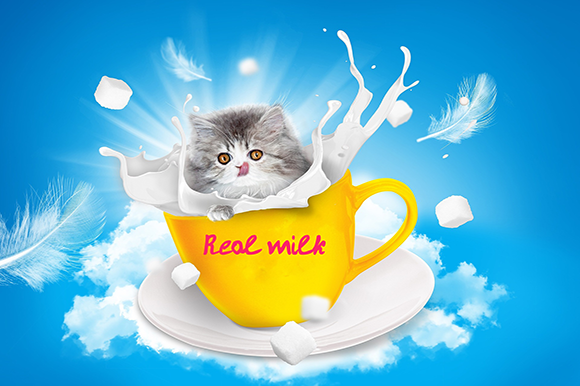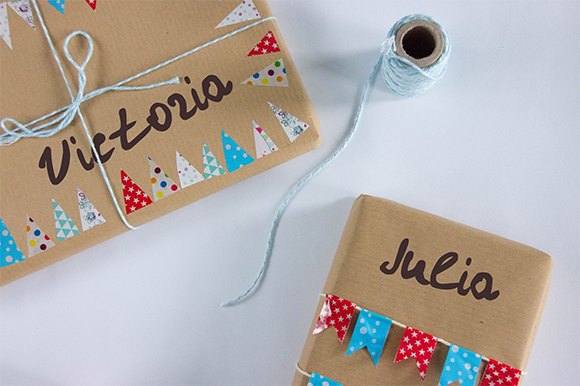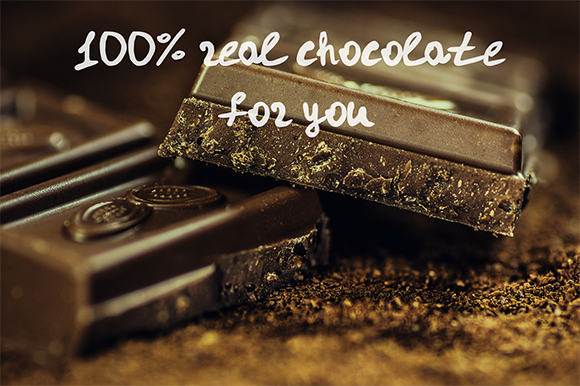
Julia-Victoria Font
About Julia-Victoria Font
Julia-Victoria is a simple and attractive handwriting font that will give your new project uniqueness and appeal.